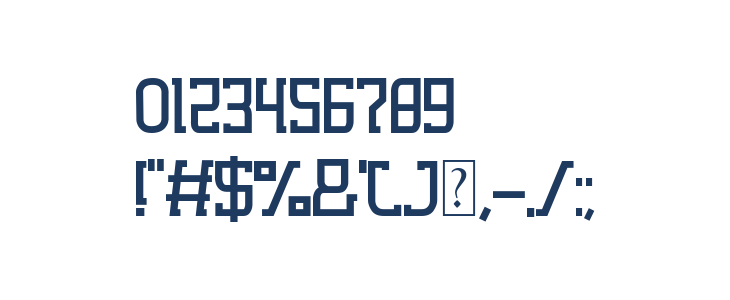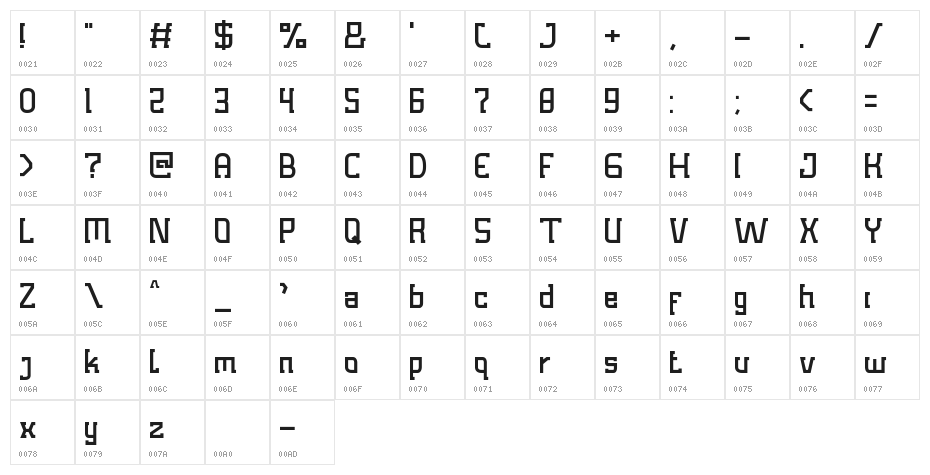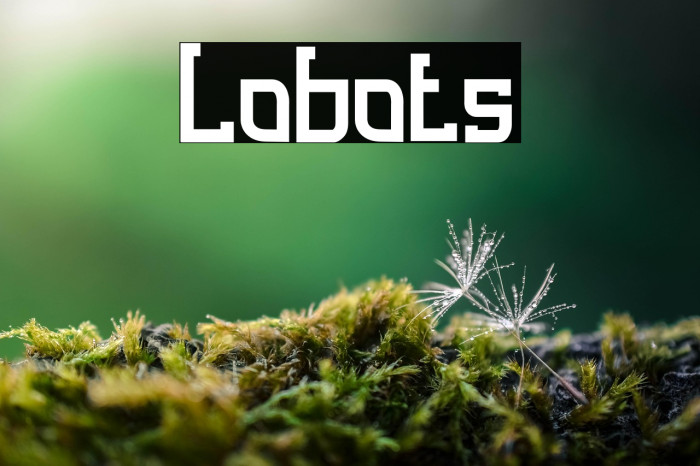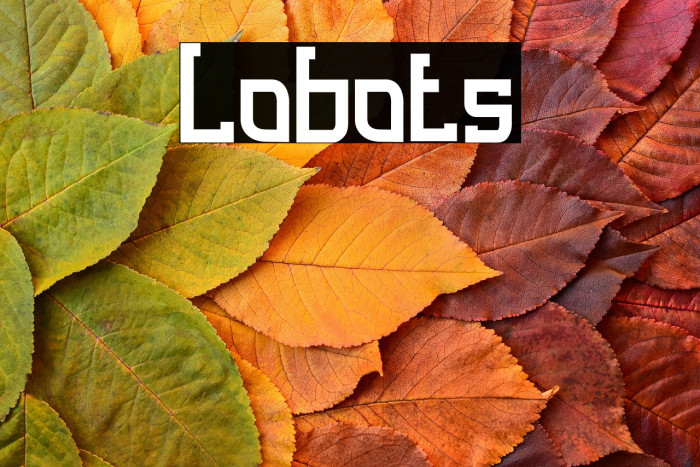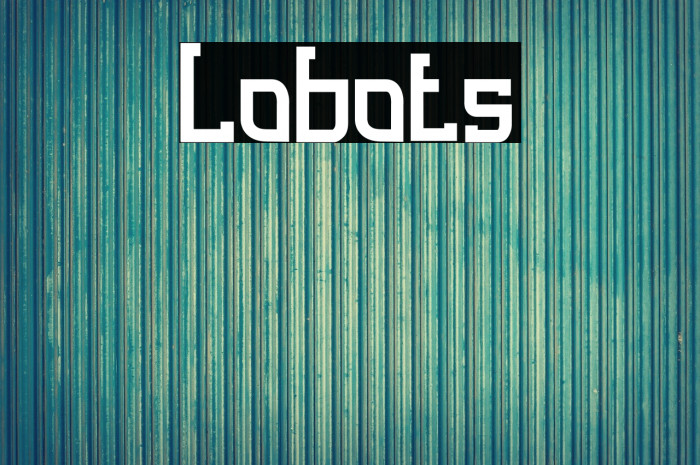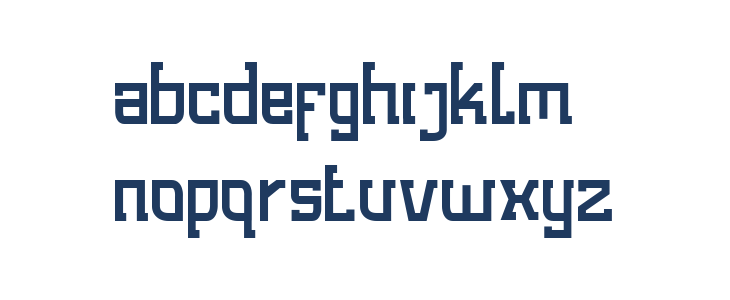
Lobots Font
Lobots Description
This font features a bold, geometric design with a modern and futuristic aesthetic. The characters are constructed with straight lines and sharp angles, giving it a mechanical and robotic feel. The uppercase and lowercase letters maintain a consistent height, contributing to a uniform appearance. The numbers and special characters follow the same design principles, ensuring a cohesive look across all glyphs. This font's distinct style makes it stand out, making it suitable for projects that require a strong visual impact.
LOBOTS UPPERCASE
LOBOTS LOWERCASE
LOBOTS OTHER CHARS
| Proposed Projects | Ideal for technology branding, sci-fi posters, video game titles, and futuristic-themed designs. |